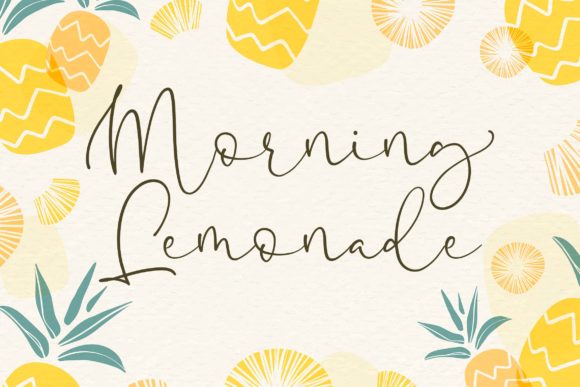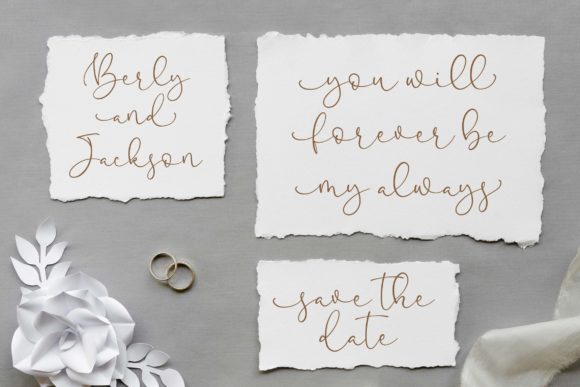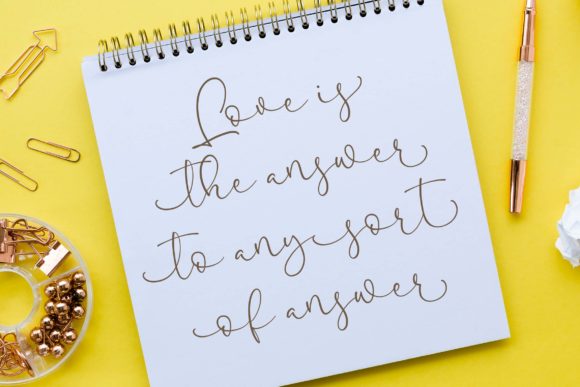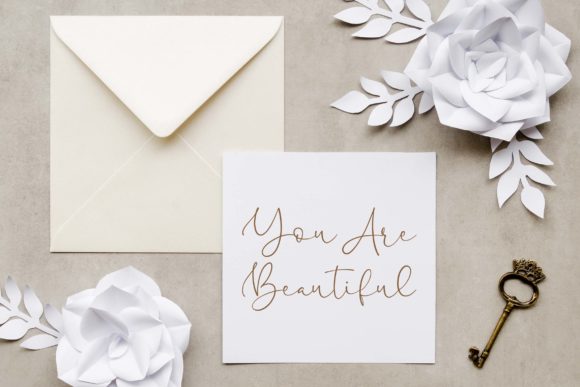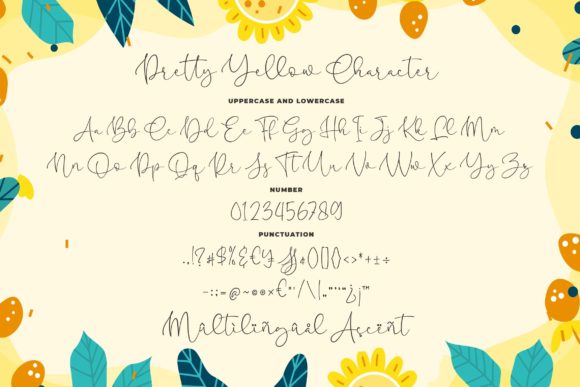
Introduction to Pretty Yellow Font
As a designer, there’s nothing quite like the thrill of stumbling upon the perfect font for your next project. It’s that moment when everything clicks, and your creative vision starts to take shape. For me, it was the discovery of the Pretty Yellow Font – a stunning, high-quality handwritten font that has become a go-to design resource for me and many other creatives.
With its gorgeous glyphs, smooth lines, and stunning alternates, Pretty Yellow Font is the perfect addition to any project. Whether you’re working on a beautiful wedding invitation, a set of stationery art, or an eye-catching social media post, this font is sure to elevate your design to the next level. And the best part? It’s available for free download, making it a valuable resource for designers on a budget.
But what really sets Pretty Yellow Font apart is its versatility. Its transparent background makes it easy to use on any design, and its varying baseline adds a touch of personality to even the most mundane projects. Whether you’re a seasoned pro or just starting out, Pretty Yellow Font is a must-have in your design arsenal.
Key Features of Pretty Yellow Font
- Unique, modern design with a transparent background for versatile use
- Perfect for use in logos, branding materials, and other design elements
Honest Review: Pretty Yellow Font
I recently had the chance to work with the Pretty Yellow Font, and I’m excited to share my thoughts on this design resource. Overall, I’m quite pleased with the quality and versatility of this font.
- High-quality design: The Pretty Yellow Font is crisp, clean, and perfect for a wide range of creative projects.
- Transparent background: The transparent background option is a great feature, allowing for easy layering and composition in design projects.
- Limited character set: I found that the font’s character set is somewhat limited, which can be a drawback for designers who need to use a wide range of characters in their projects.
- No bold or italic options: Unfortunately, this font does not offer bold or italic options, which can be a limitation for designers who need to add emphasis to their text.
Overall, I’m impressed with the Pretty Yellow Font, and I think it’s a great addition to any designer’s toolkit. While it has some limitations, its high quality and versatility make it a valuable resource for creative projects.
Tips and Use Cases
The Pretty Yellow Font is ideal for creative projects that require a playful and eye-catching font. Use it for social media graphics, posters, or flyers. It’s also great for branding and logo design, as it adds a touch of elegance and sophistication. To get the most out of the font, experiment with different font sizes and styles to create a visually appealing design.